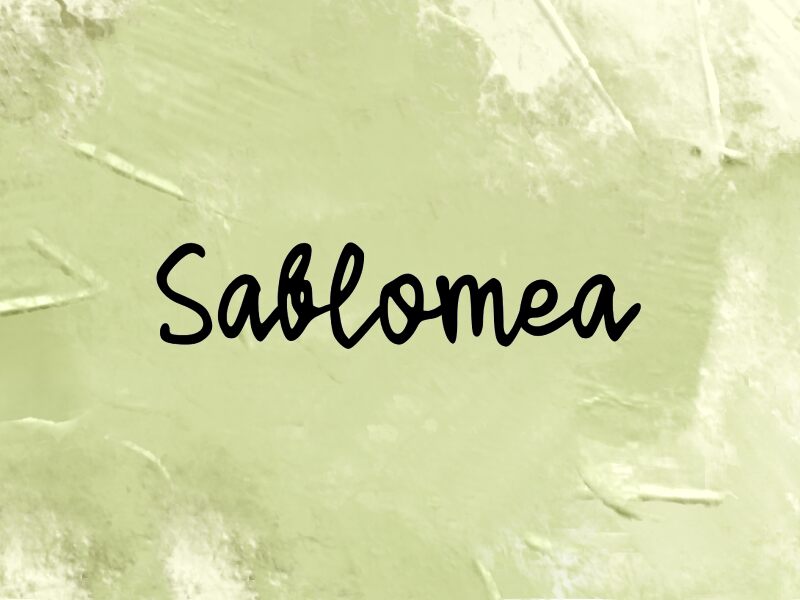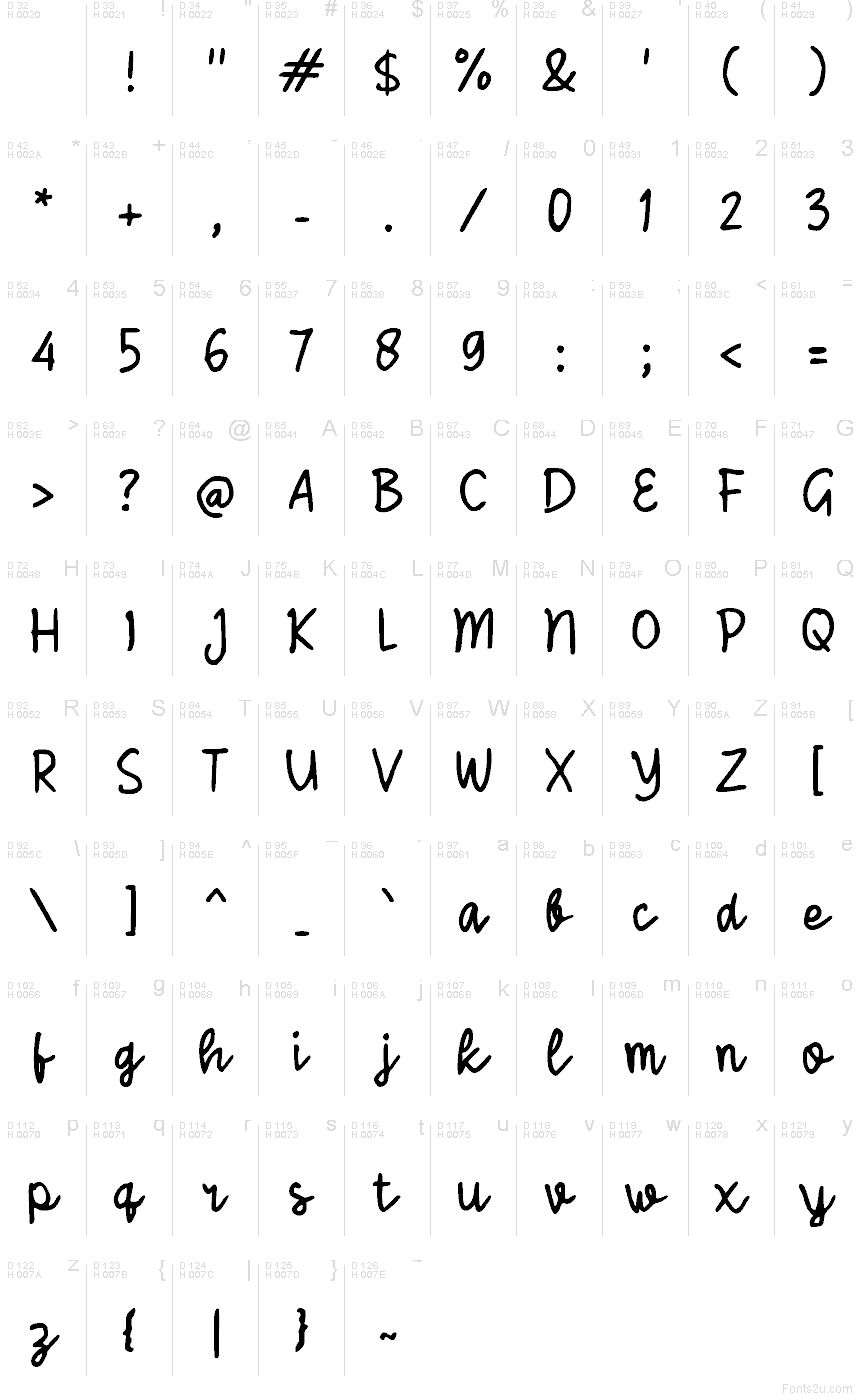
Sablomea
Sablomea font by wepfont.com is a free handwritten script typeface with the ease of a quick note and the clarity of a logo sketch. Its strokes feel like a thick brush pen gliding over paper—smooth, slightly bouncy, and dark enough to stand out even on busy backgrounds. The letters connect with an easy rhythm that looks friendly and informal, but the spacing stays open, so words read cleanly at a glance instead of turning into a scribbled blur.
Using Sablomea, this free font shines on social media graphics, product packaging, handmade brand logos, quote posts, planners, and friendly email headers. The casual curves bring a personal, human touch without sacrificing legibility, which makes it a natural fit for lifestyle, craft, and beauty projects. Try pairing Sablomea with a simple sans serif for body text and keep Sablomea slightly larger, letting its bold, inky linework carry the personality.